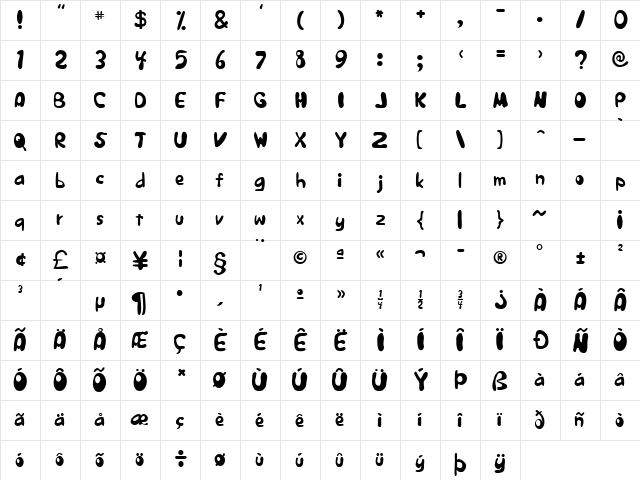
Japestyle Plain Font Preview
Japestyle Plain
Design Context for Japestyle Typeface
Japestyle is a composed and adaptable typeface that performs quietly and consistently across a wide range of design contexts.